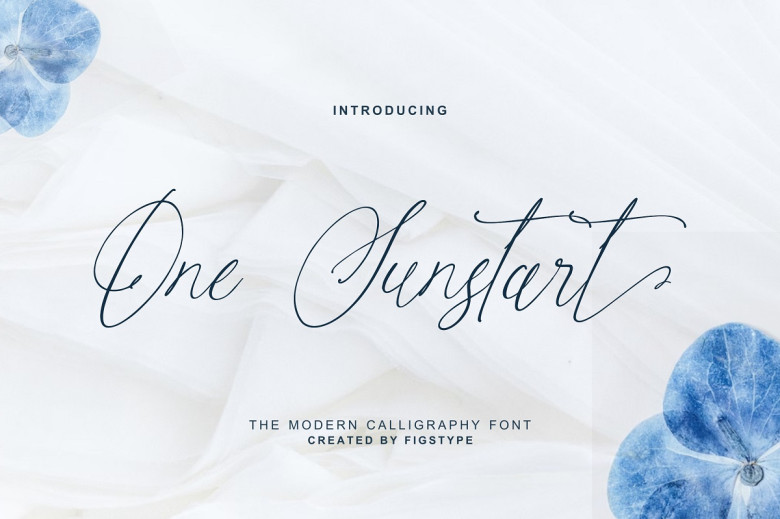
One Sunstart Font
One Sunstart is an exquisite balance between sophistication and ease. Its gentle curves and straight lines give this font its classic appearance, while its modern designs bring individuality and creativity. PUA-encoding provides easy access to its glyphs and swashes.
One Sunstart Handwritten Script Font